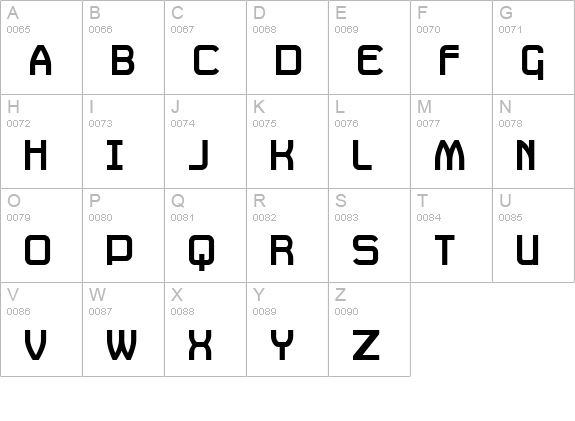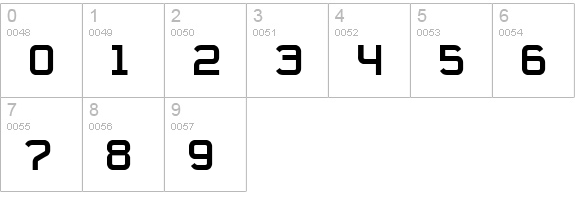
Daville font is a modern and stylish typeface that exudes elegance and sophistication. With its clean lines and sleek design, Daville is perfect for a wide range of design projects, from branding to editorial design. This versatile font is sure to make your text stand out and leave a lasting impression on your audience. Best of all, Daville font is available for free download at FontsMarket.com. Whether you're a professional designer or just getting started in the world of typography, Daville is a fantastic addition to your font collection. Don't miss out on the opportunity to elevate your designs with this beautiful and free font. Download Daville today and see the difference it can make in your projects!